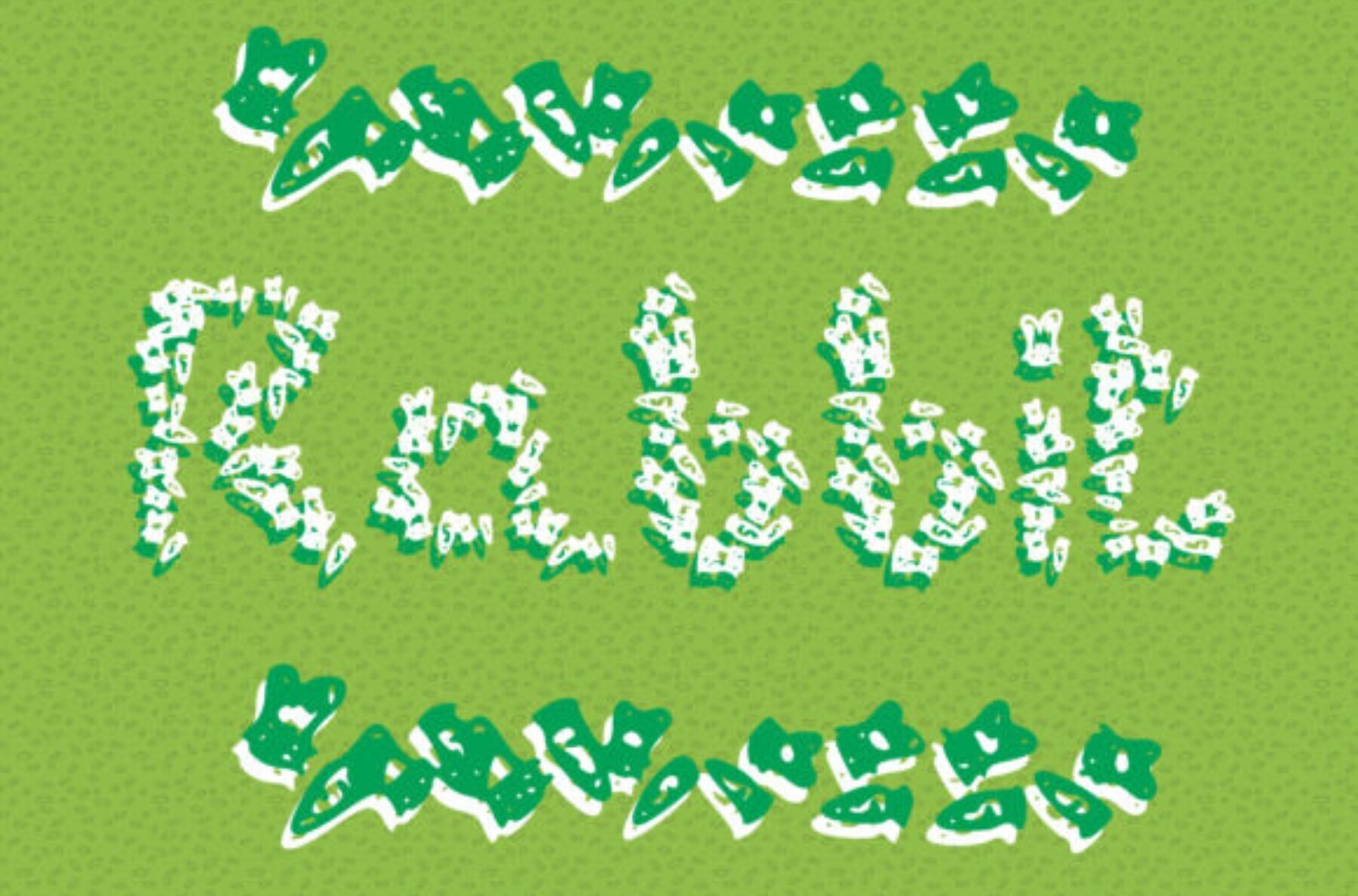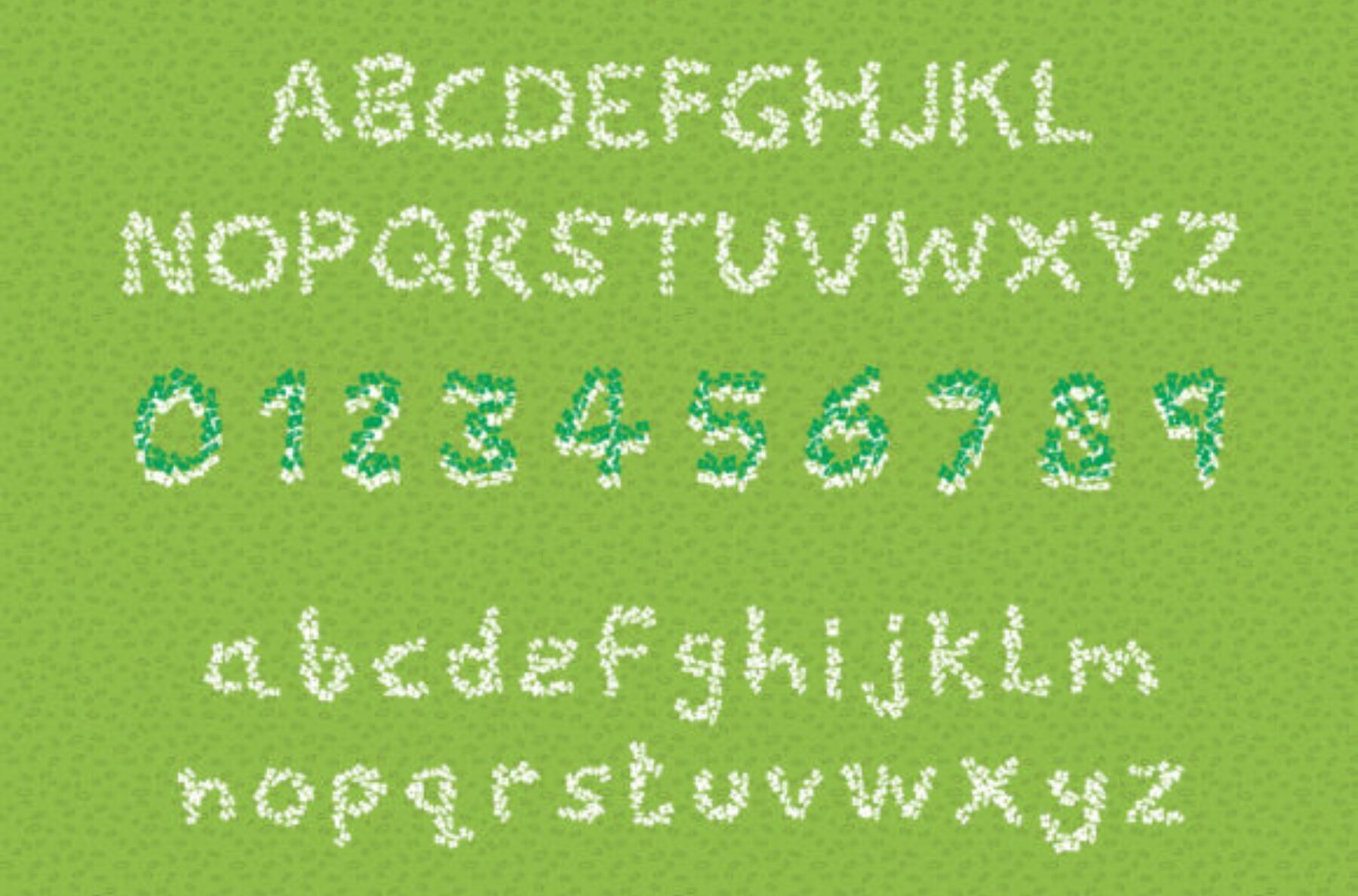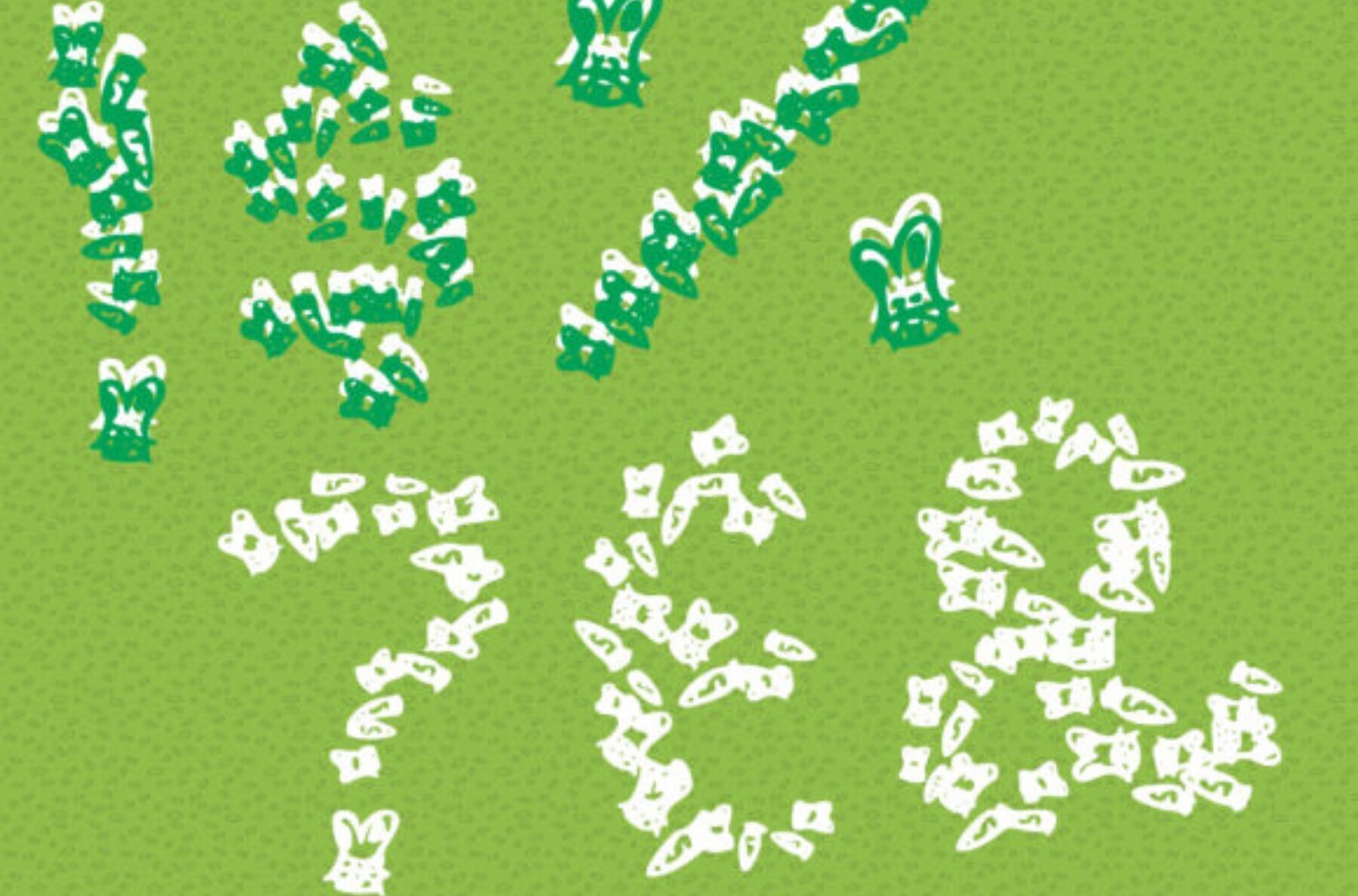
Rabbit Font
Rabbit
Infuse your designs with playful charm using Rabbit, a delightful display font that features hand-drawn rabbits and carrots. This unique typeface is perfect for projects that need a cheerful touch, bringing a dash of whimsy to invitations, children’s books, and playful branding.Add Cheer to Your Creations with Rabbit